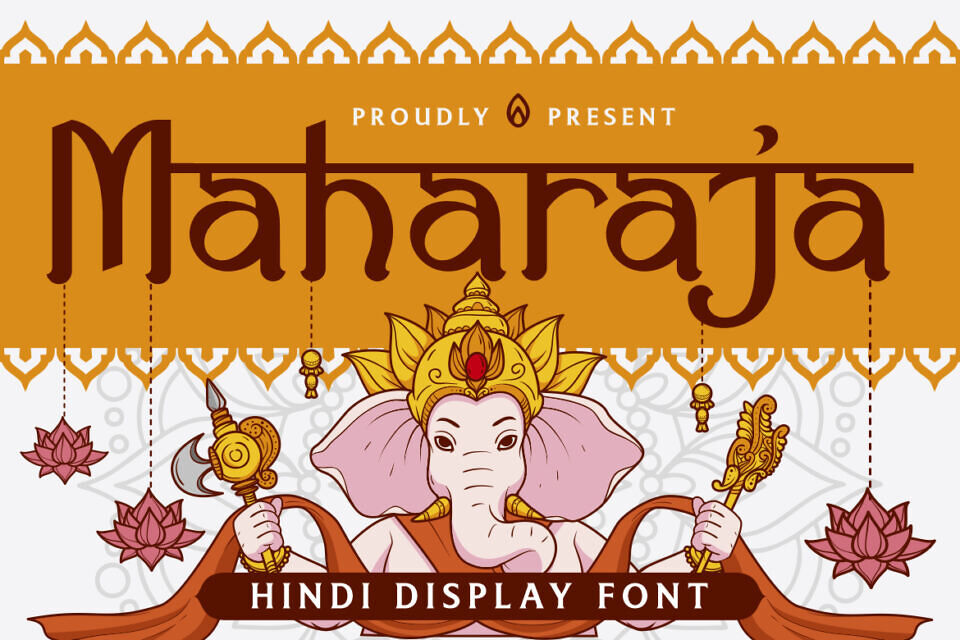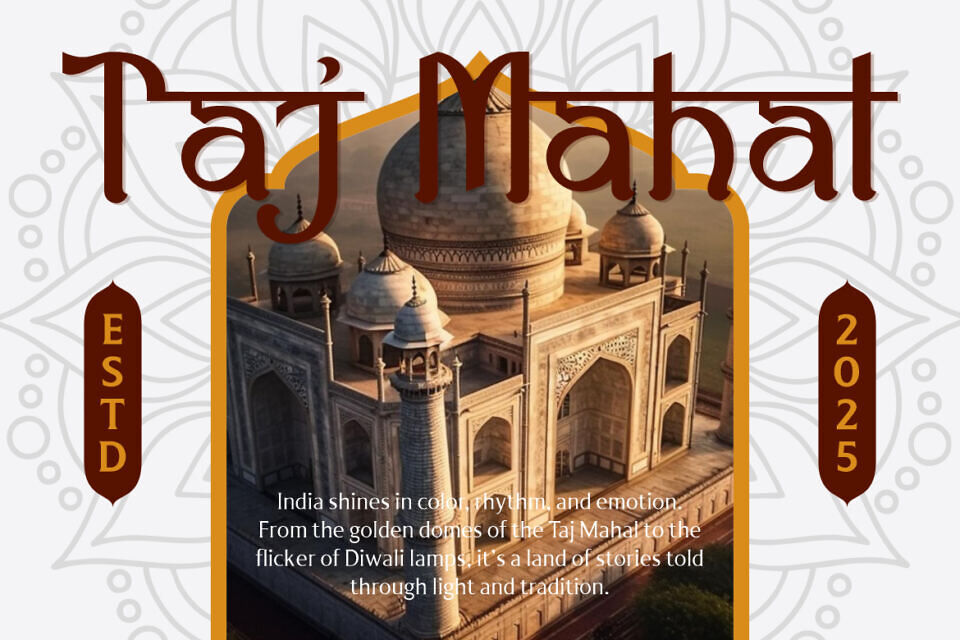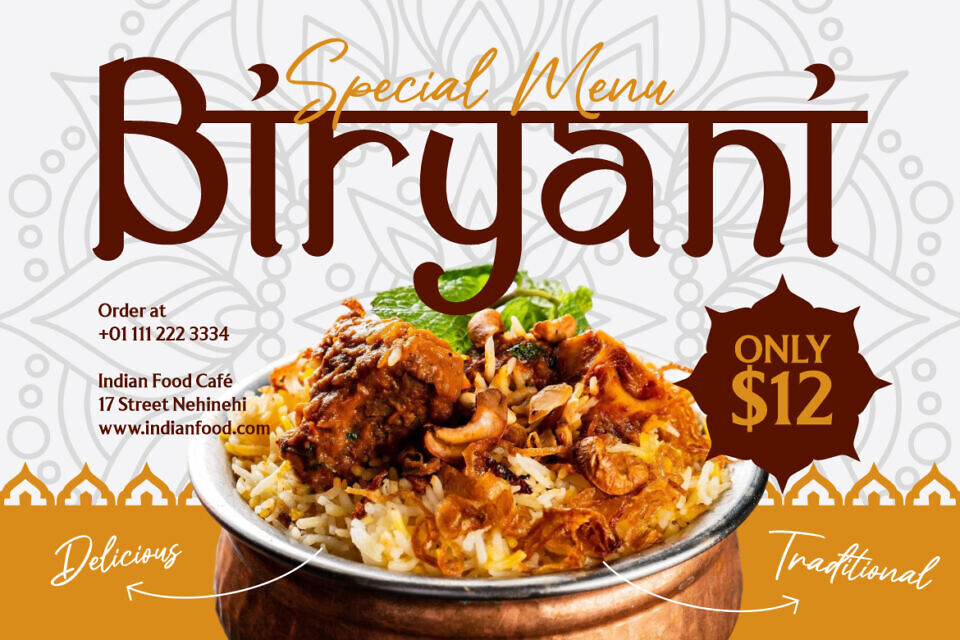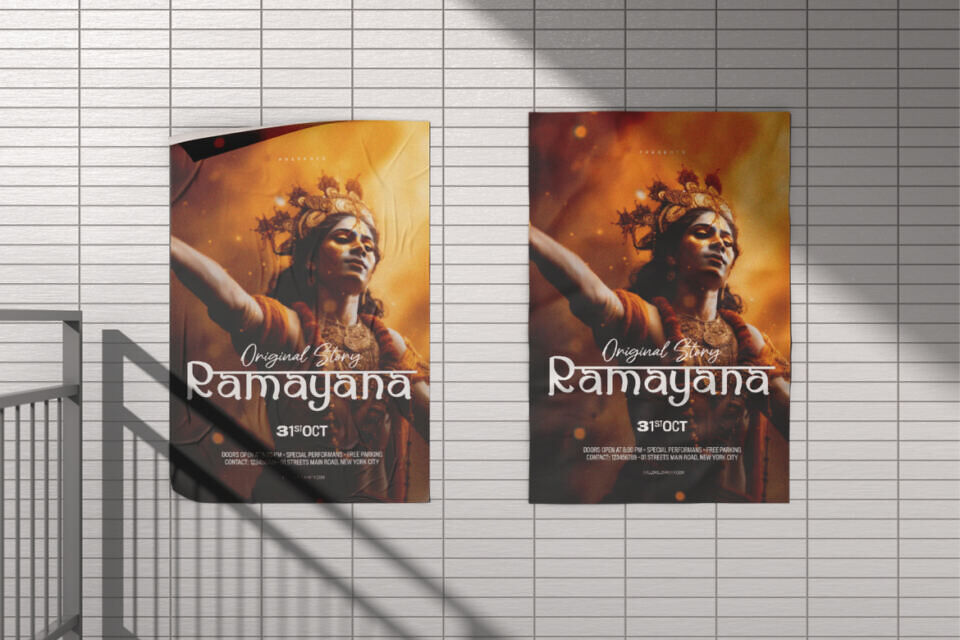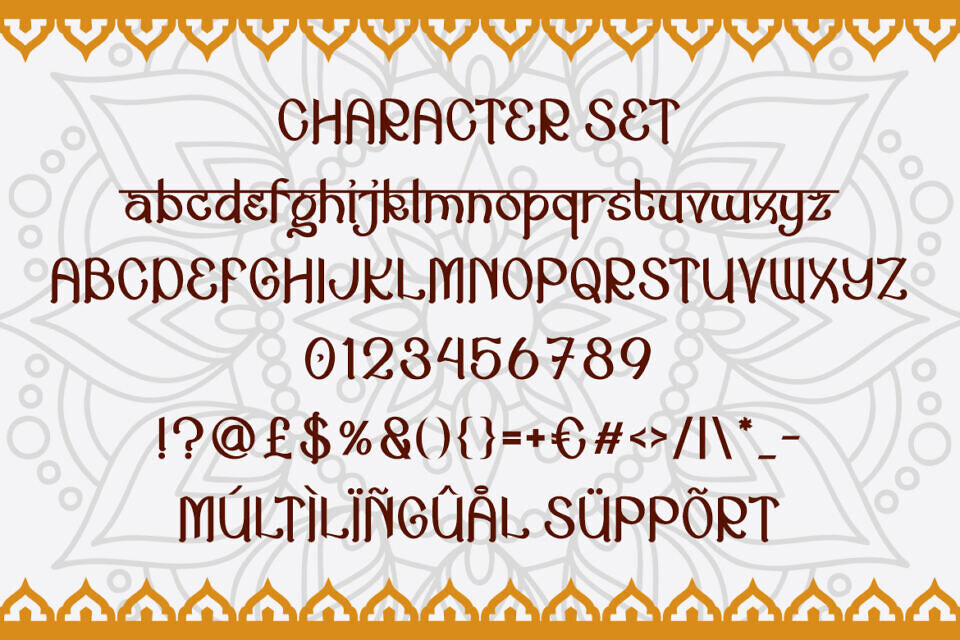
Maharaja Font
Maharaja Hindi Display Font delivers a strong Indian atmosphere through tall, slender letterforms with smooth rhythmic flow. Each character features curves inspired by Hindi calligraphy, blending traditional charm with modern clarity. Subtle ornamental details add an artistic touch while maintaining readability and professional stability. Influenced by Sanskrit and South Asian aesthetics, the font feels elegant, warm, and exotic.
Ideal for logos, branding, posters, headlines, invitations, packaging, books, magazines, film titles, and editorial or advertising designs, it excels at large sizes and helps convey authentic Indian culture, tradition, and storytelling through refined typography.